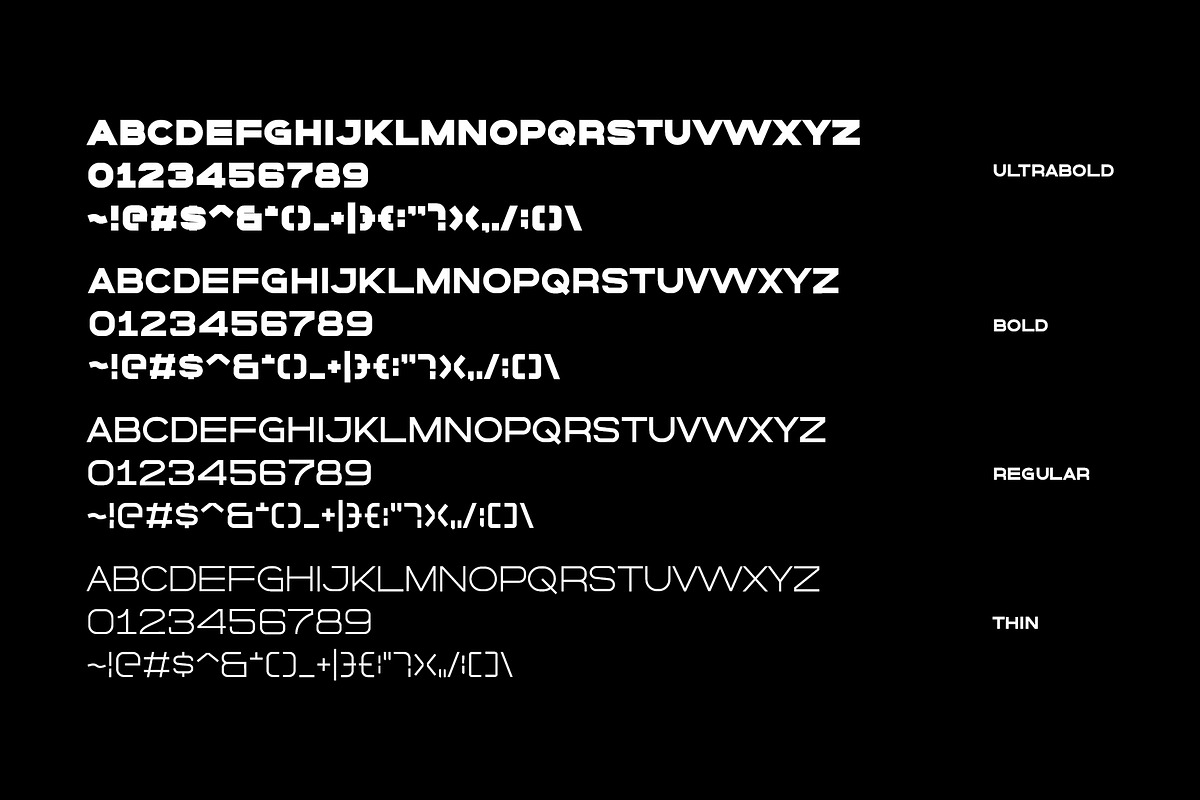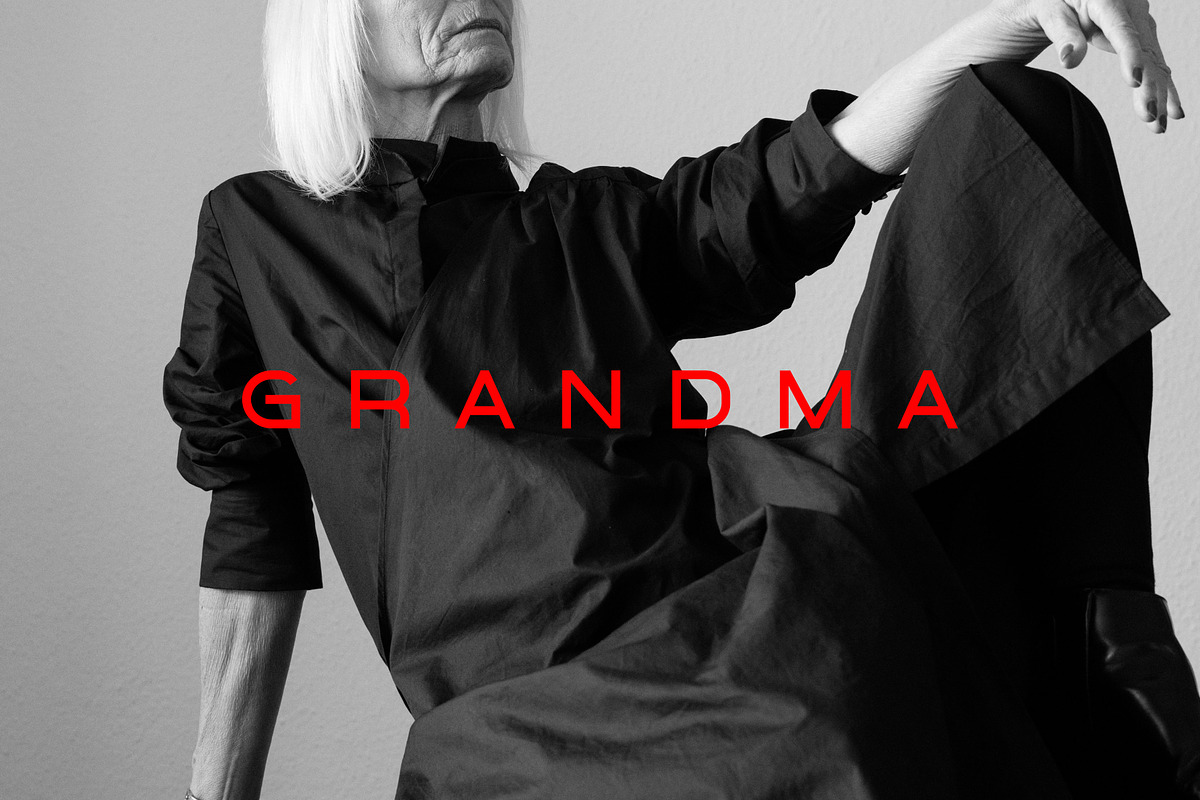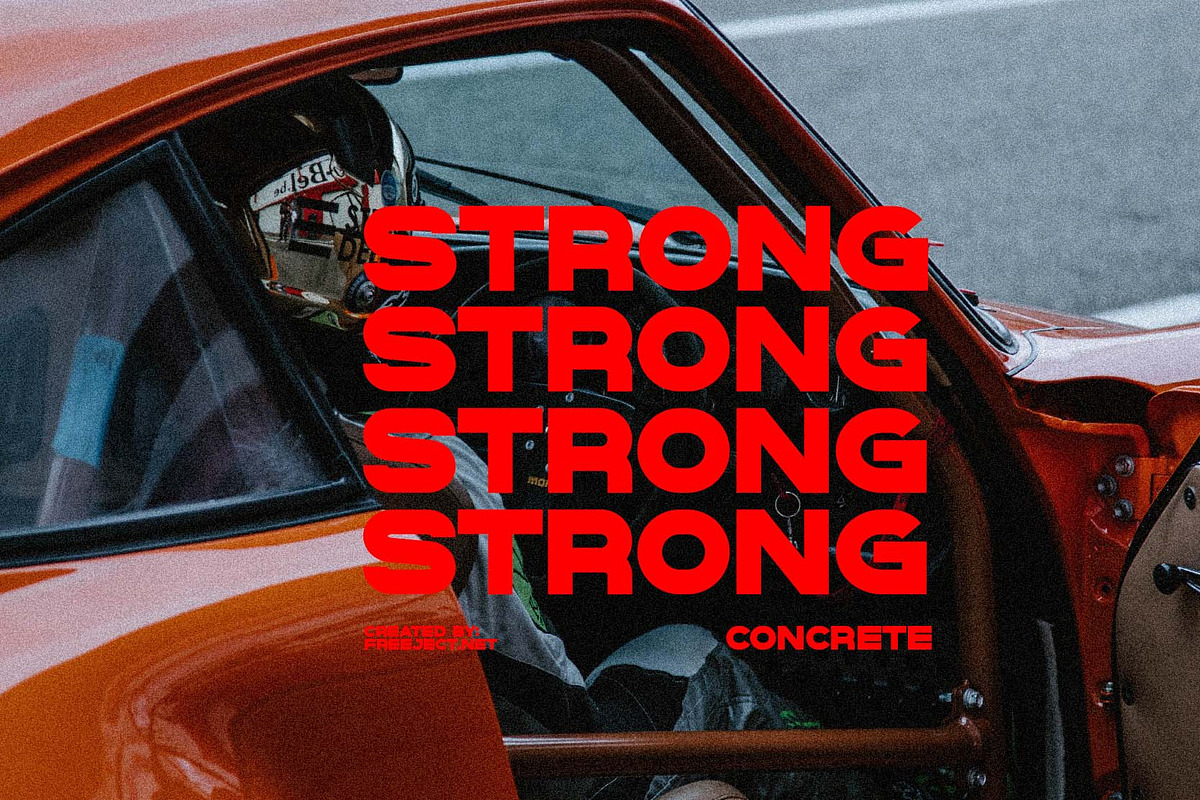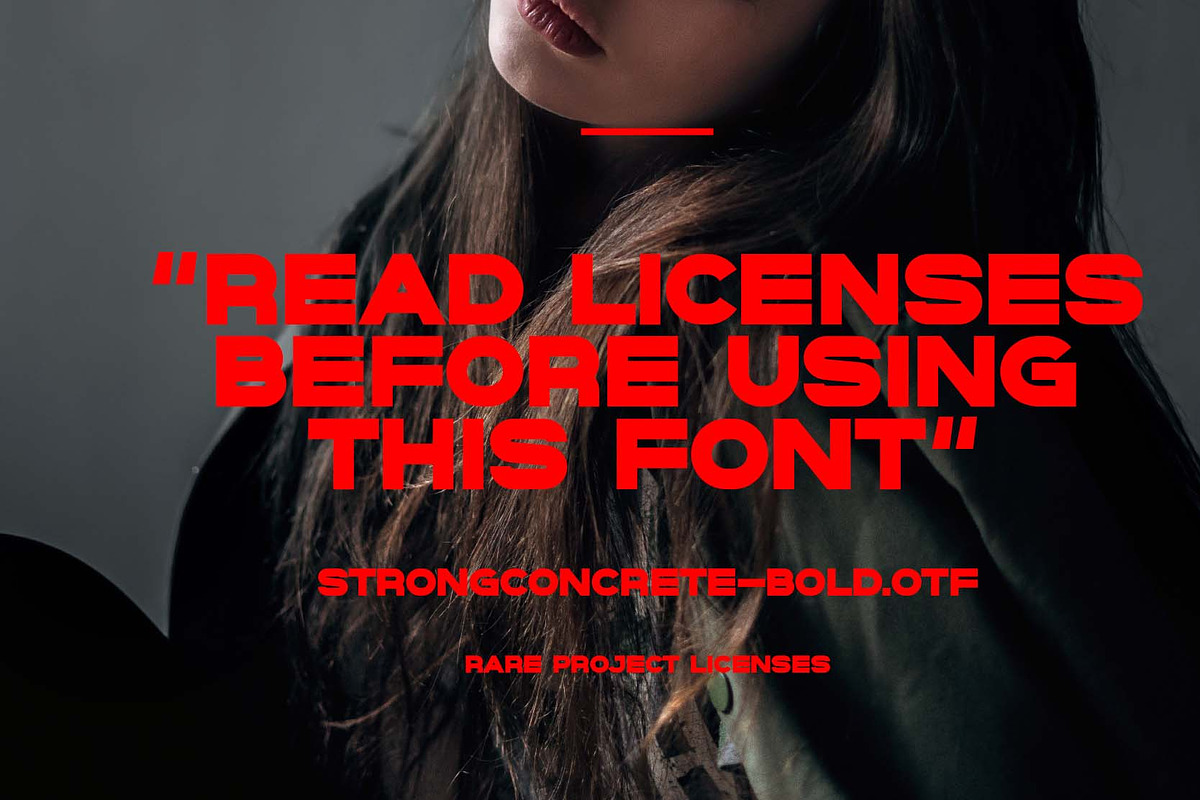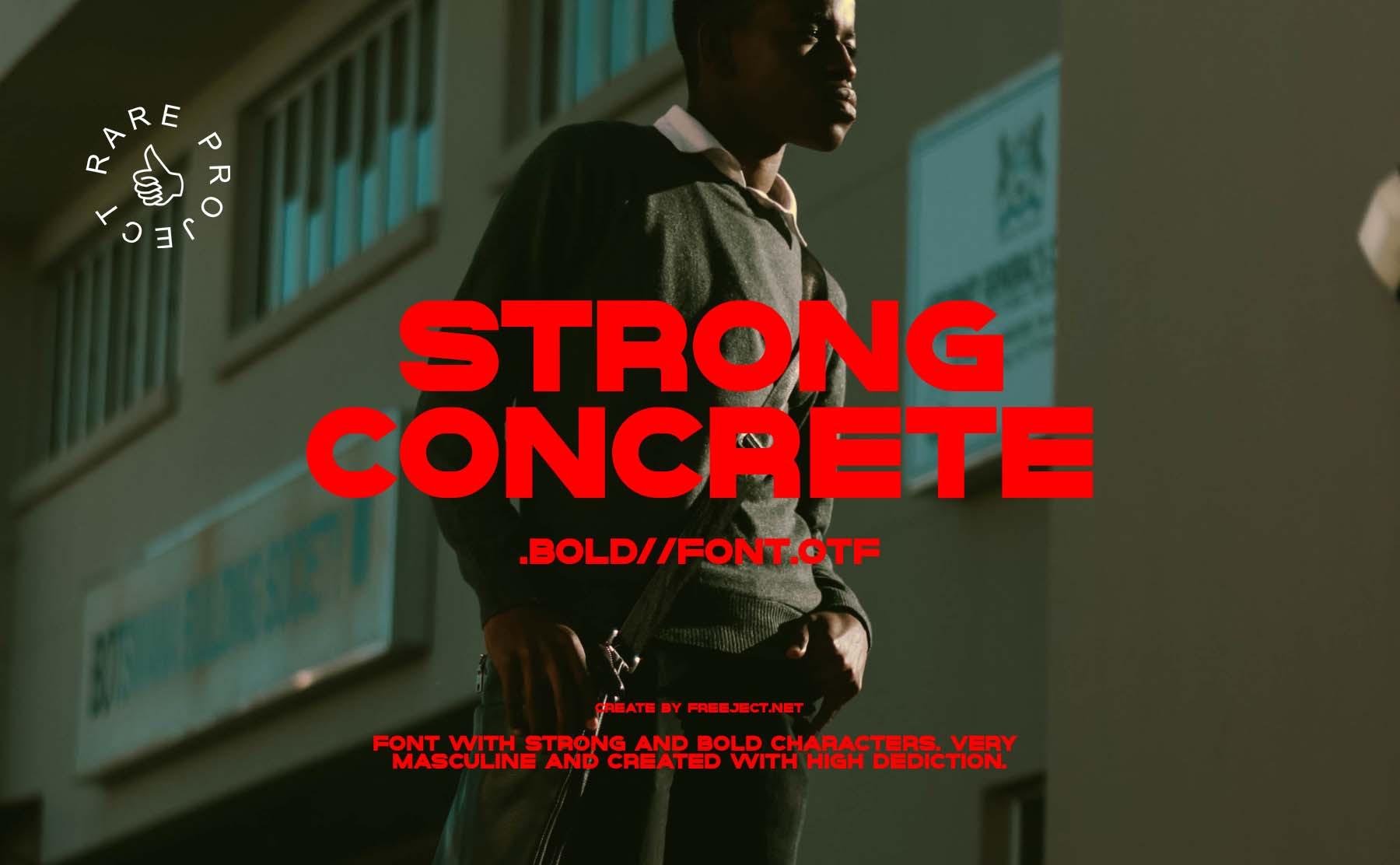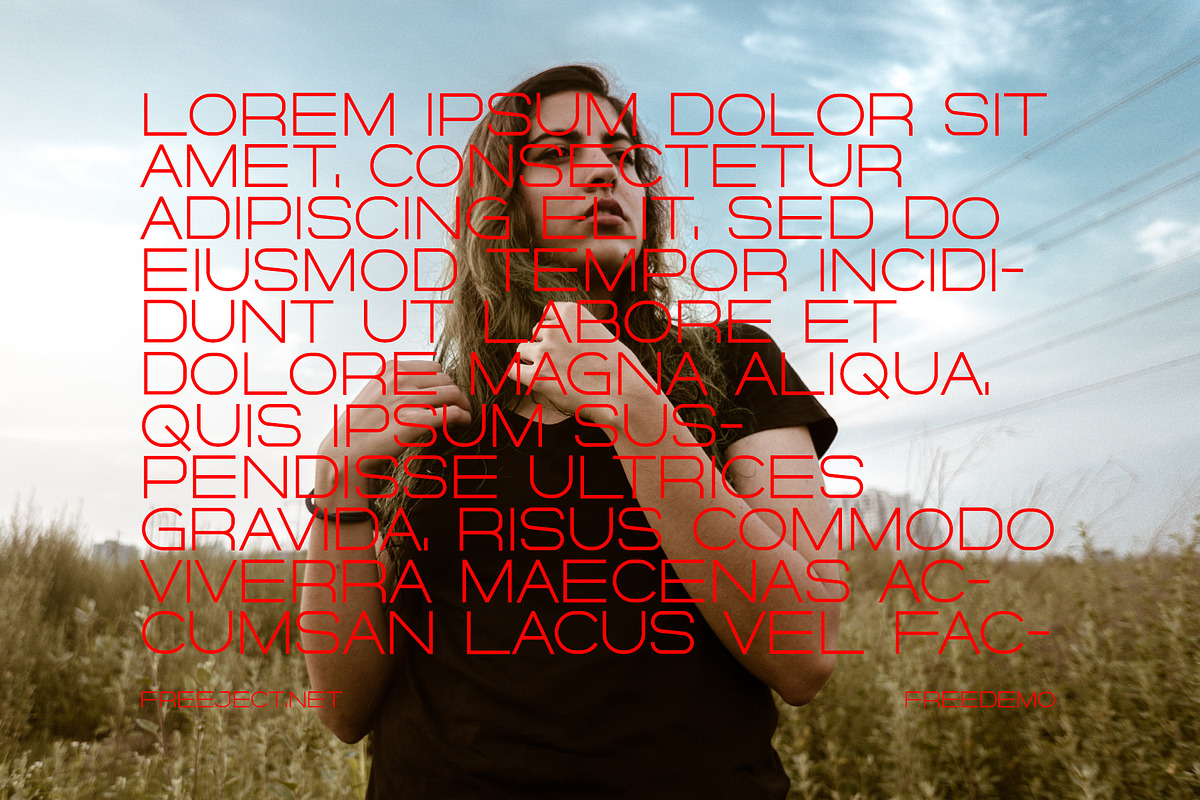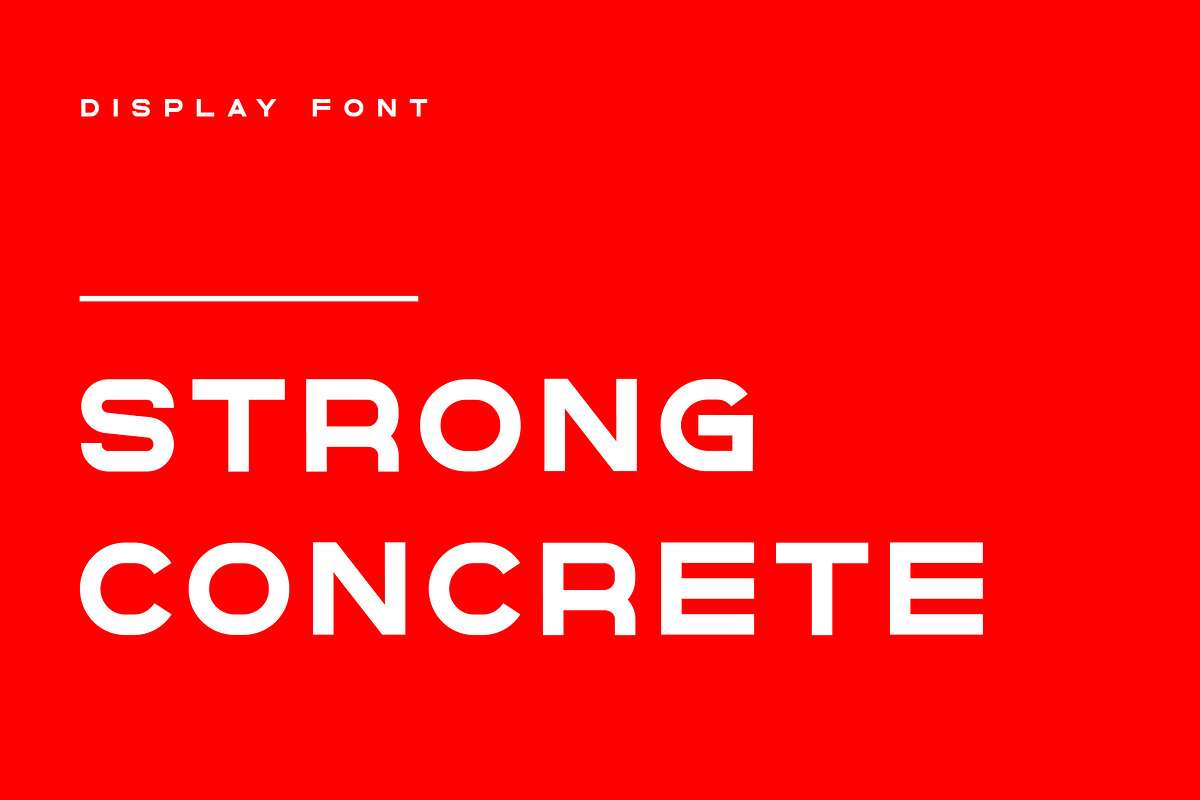
Strong Concrete - Display Font
we are proud to present a powerful and futuristic font. you can use as poster title text, cover art, print, logo text, etc. we follow the extended monument font style that is trending at the moment. The strong character and charisma of this font will add value to your design. Strong Concrete Bold is a font that answers sharing questions about fonts suitable for most designs. font anatomy is very sturdy and masculine. can be combined with lettering and calligraphy fonts. This font is perfect for those of you who like street, future, cyberpunk, hypebesat, trendy, etc. we only make fonts with uppercase format, there are a few additional punctuation marks and numbers ready to use. free download at the link below.